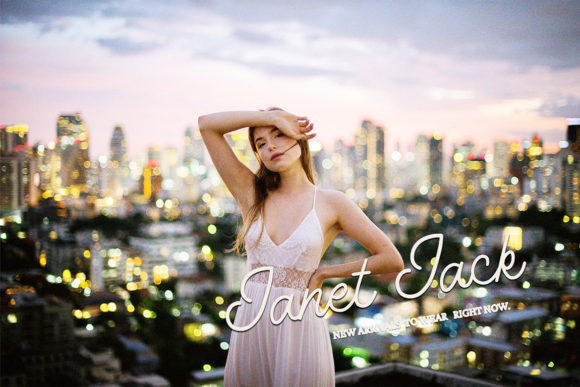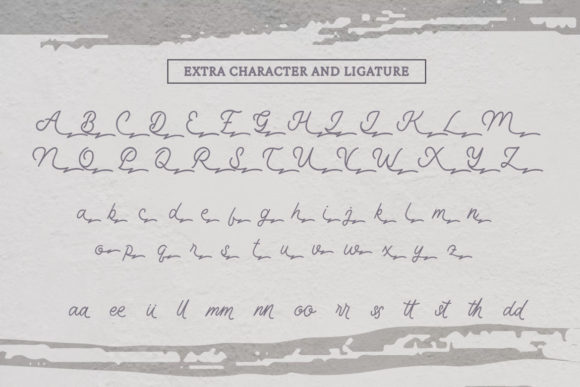
Confetto Font
db-ku.com - Script & Handwritten -- Confetto is a high-quality script font with strokes inspired by an adventurous vibe and a vintage design.